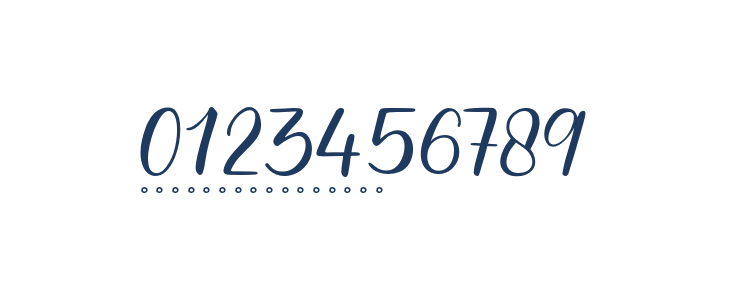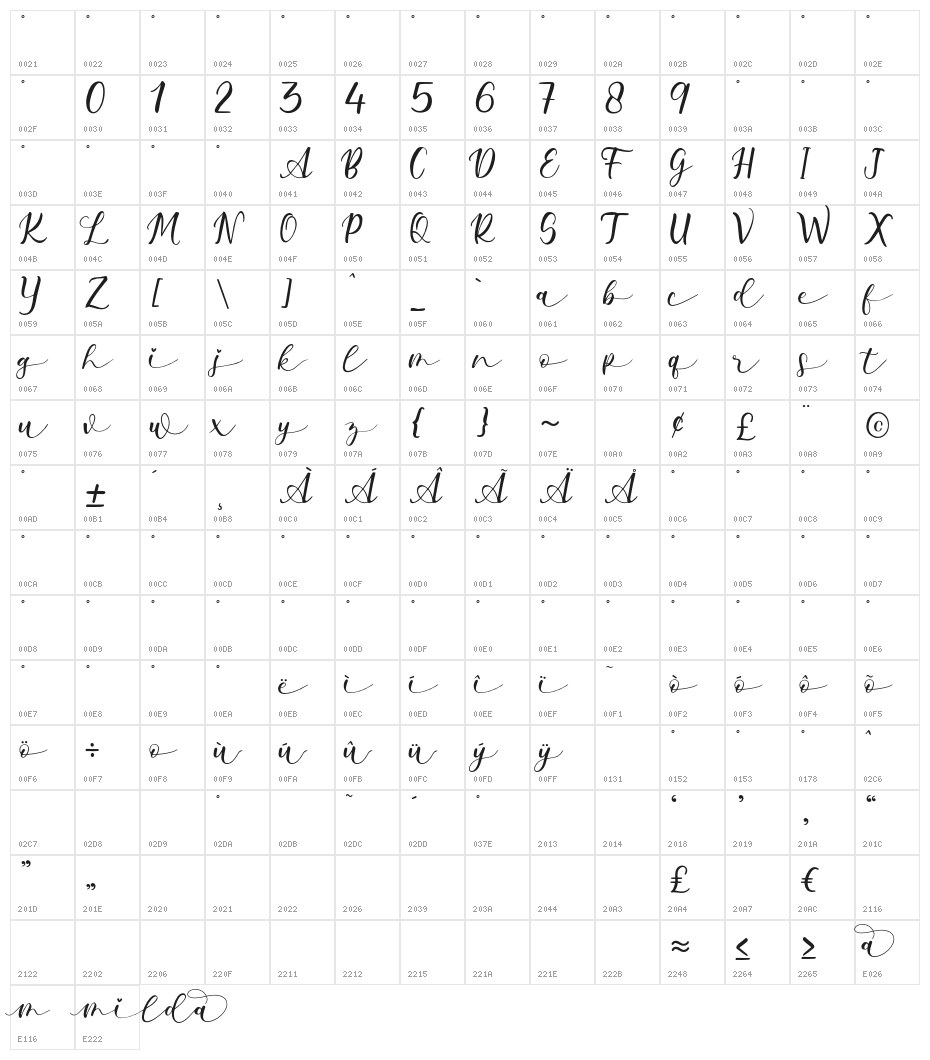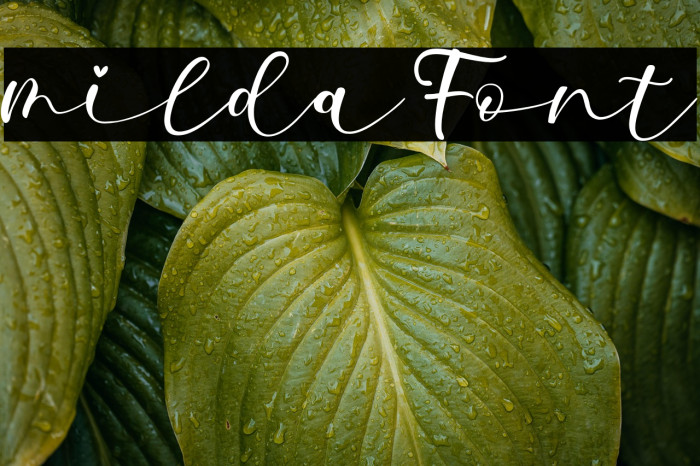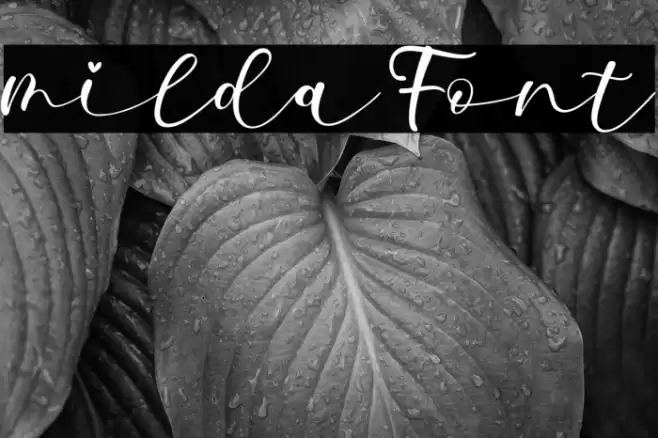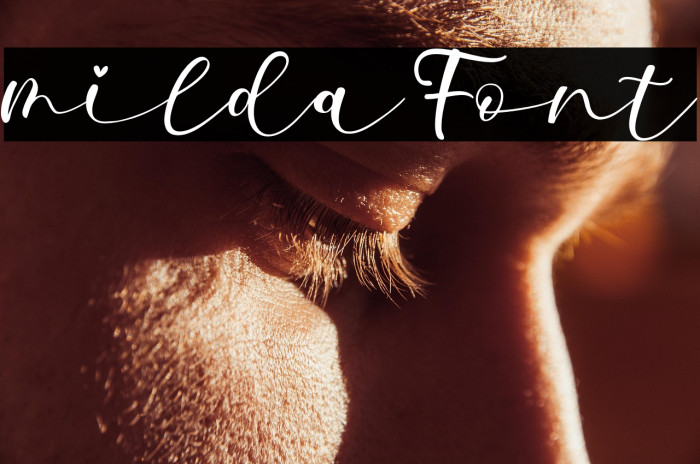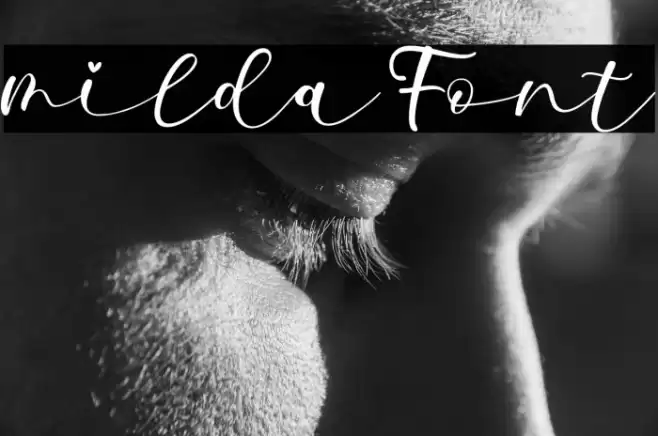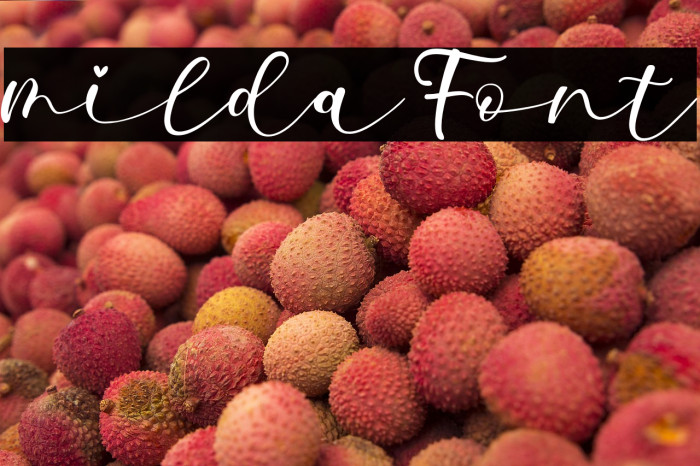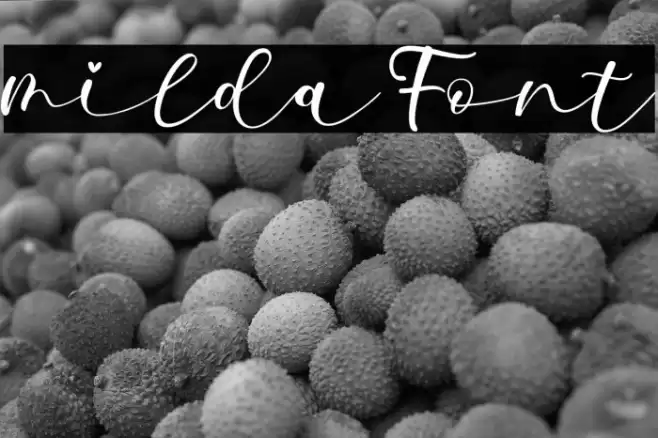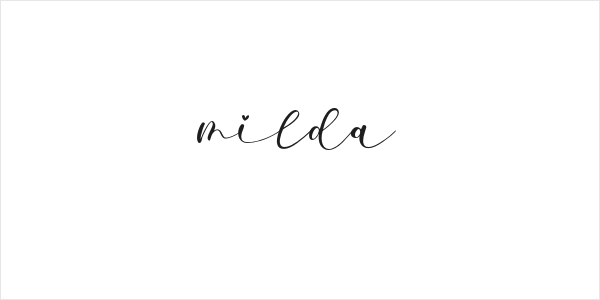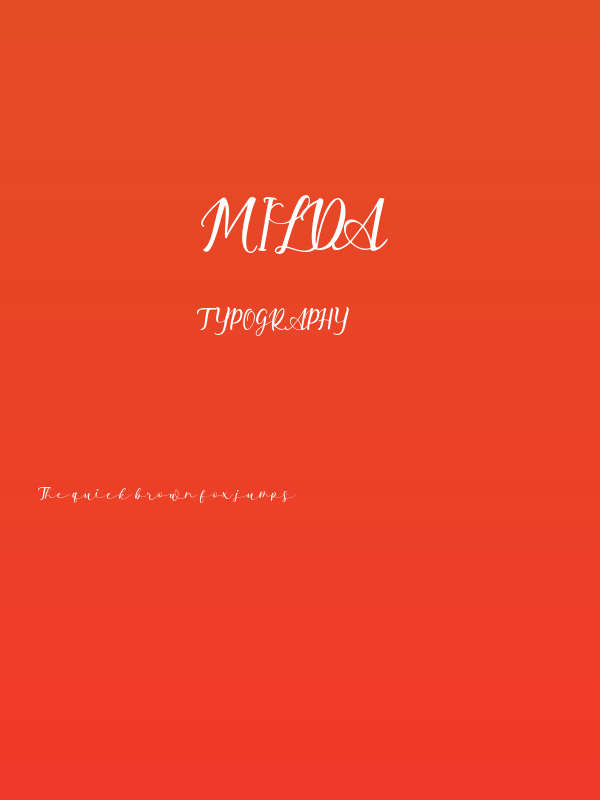
milda Font
milda Description
This elegant script font features a flowing, cursive style with smooth, connected strokes that give it a sophisticated and graceful appearance. The uppercase letters are bold and slightly slanted, adding a dynamic feel, while the lowercase letters maintain a consistent flow with delicate loops and curves. The numerals are stylishly designed to match the overall aesthetic, and the special characters integrate seamlessly with the rest of the font. This font exudes a sense of elegance and charm, making it perfect for projects that require a touch of sophistication.
| Overall Style | Elegant, Sophisticated |
| Proposed Projects | Ideal for wedding invitations, elegant branding, greeting cards, and upscale packaging. |